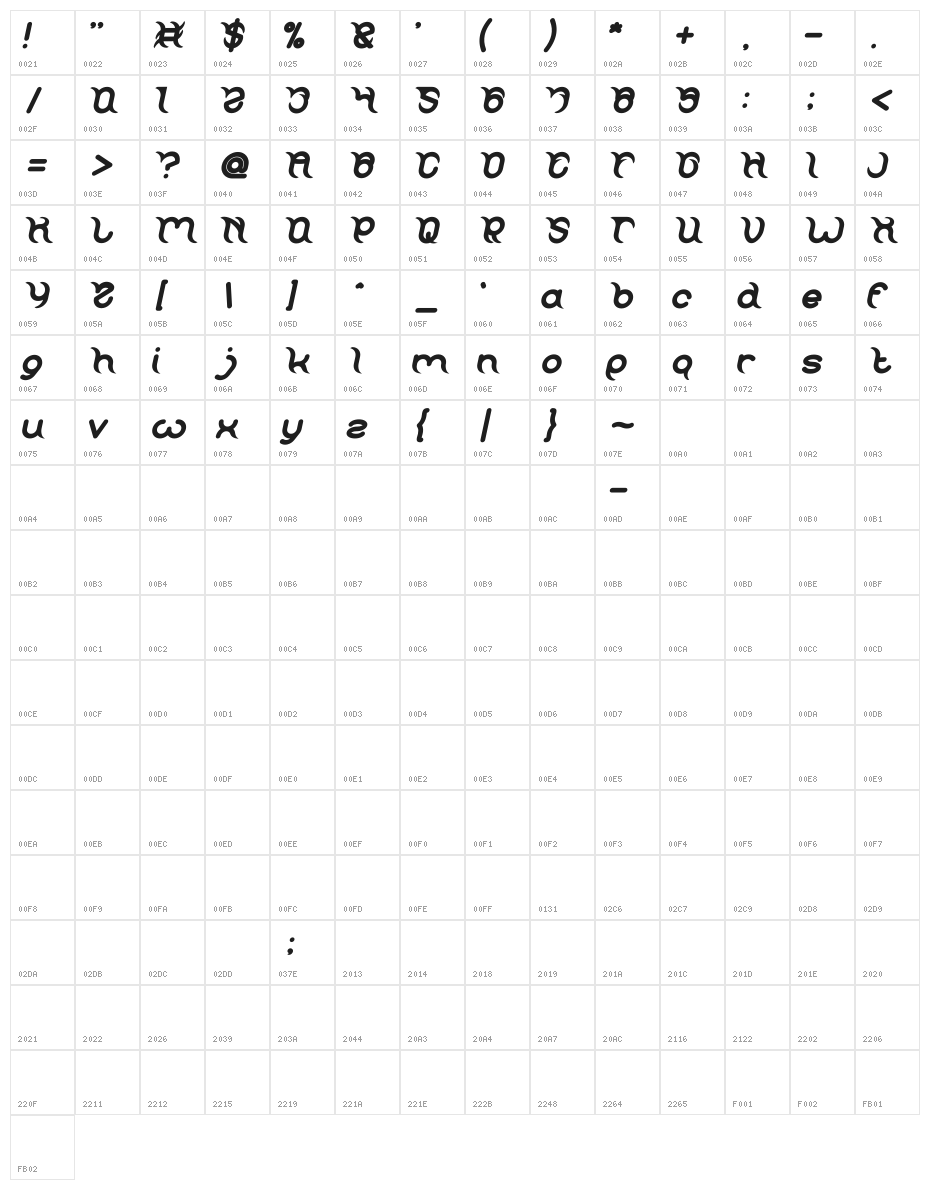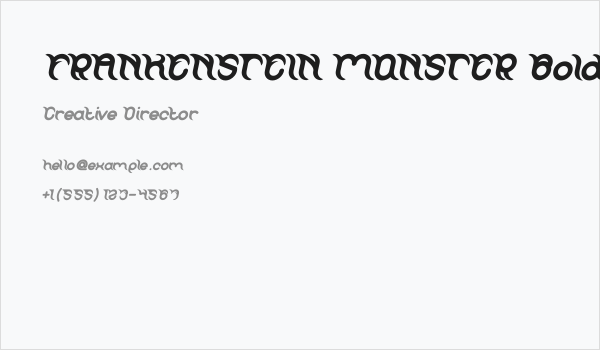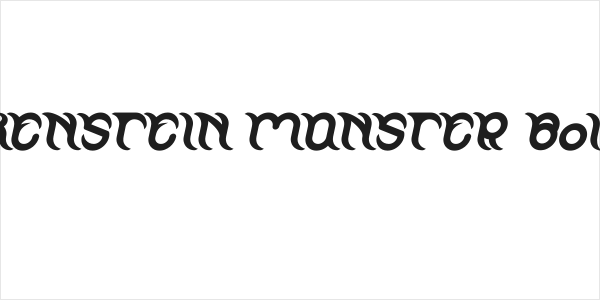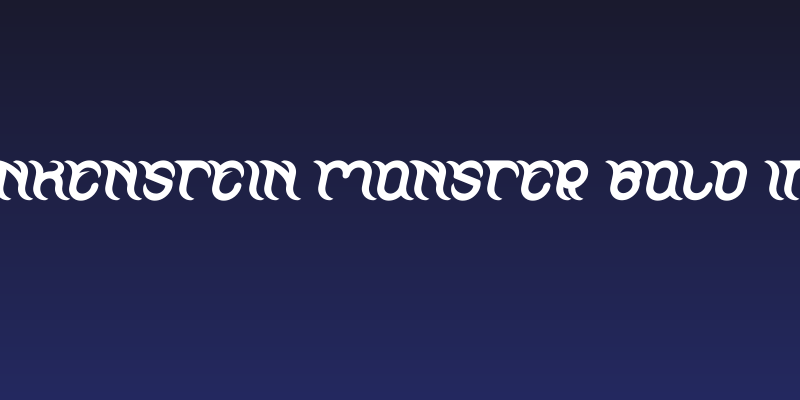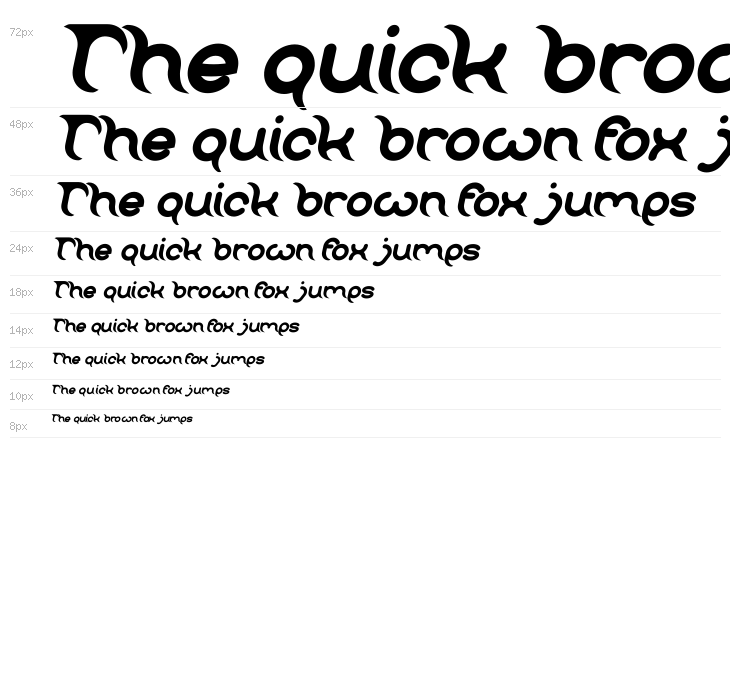
FRANKENSTEIN MONSTER Bold Italic Font
FRANKENSTEIN MONSTER Bold Italic Description
This font exhibits a bold and italicized style with a unique, monstrous flair. The characters are heavily stylized, featuring exaggerated curves and a playful, yet slightly eerie appearance. The uppercase and lowercase letters maintain a consistent theme, with each character appearing as if it has been twisted or distorted, adding to its distinctive look. The numbers and special characters follow suit, ensuring a cohesive design throughout. This font's boldness and dramatic style make it stand out, capturing attention with its unconventional and artistic design.
| Proposed Projects | Ideal for Halloween-themed projects, horror movie posters, spooky invitations, or any creative work requiring a bold and eerie typeface. |